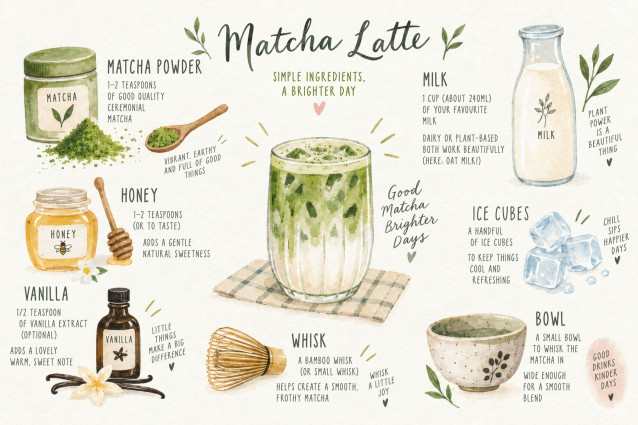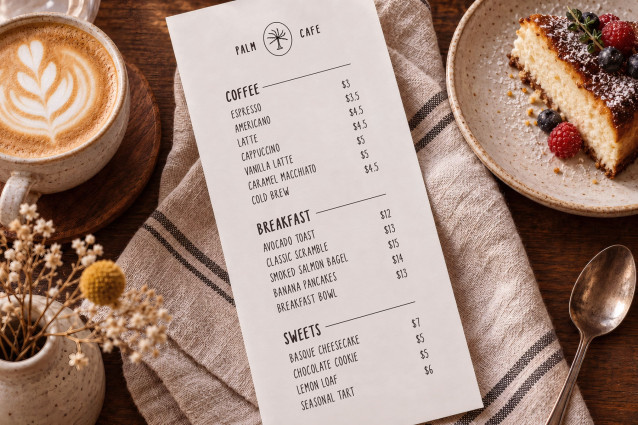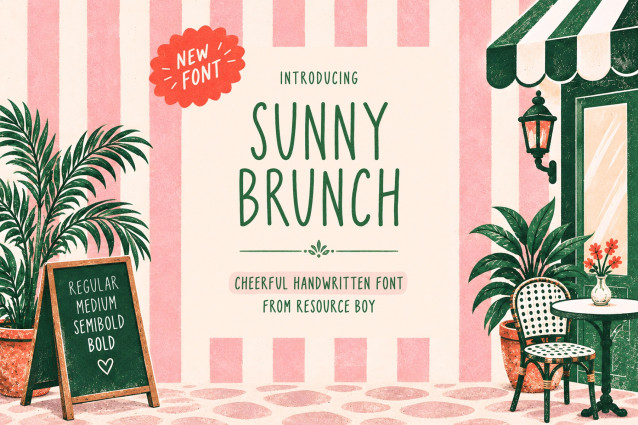
Sunny Brunch Font
Sunny Brunch is a cheerful handwritten font with tall, relaxed letterforms and a naturally playful rhythm. Its slightly imperfect shapes give every word a warm, handmade personality without sacrificing clarity, making it an easy choice for branding, packaging, menus, labels, and social graphics.
Available in four weights from Regular to Bold, Sunny Brunch gives you enough flexibility to build expressive headlines, friendly identities, and laid-back designs that feel personal, inviting, and full of character.